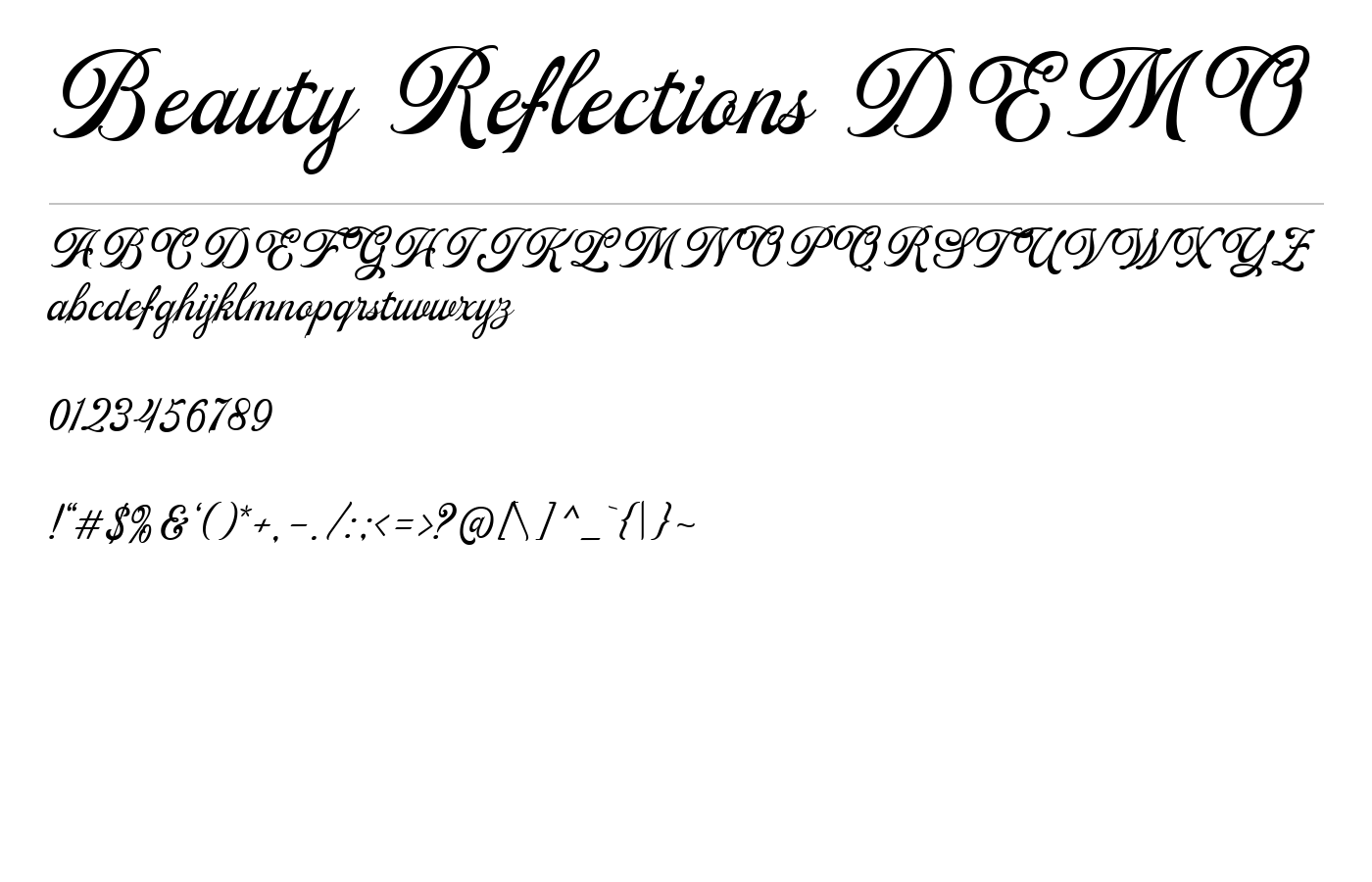
Beauty Reflections DEMO is an elegant script font with a refined, flowing style that conveys sophistication and grace. Its delicate strokes and high contrast between thick and thin lines give it a classic, luxurious feel, perfect for upscale branding, wedding invitations, and beauty or fashion-related designs. This font works best in headlines or logos where its decorative flair can truly shine.
Beauty Reflections DEMO Font
About Beauty Reflections DEMO Font
| Font family | Beauty Reflections DEMO Font |